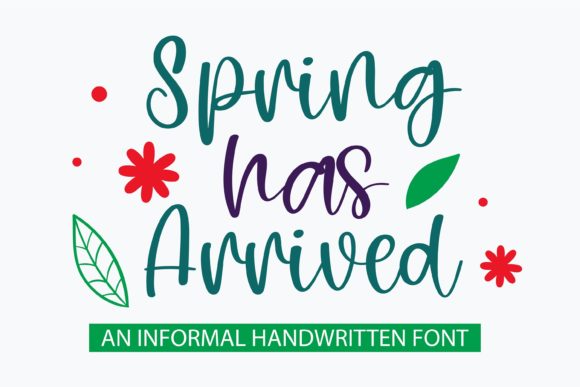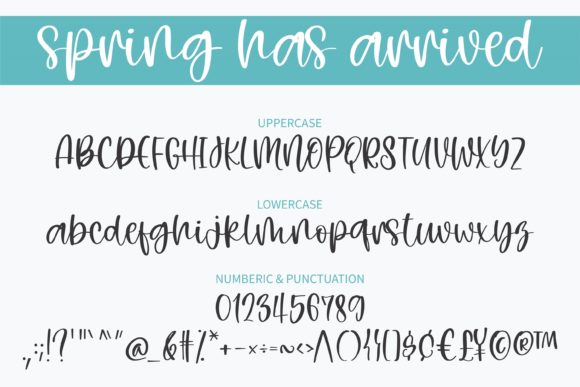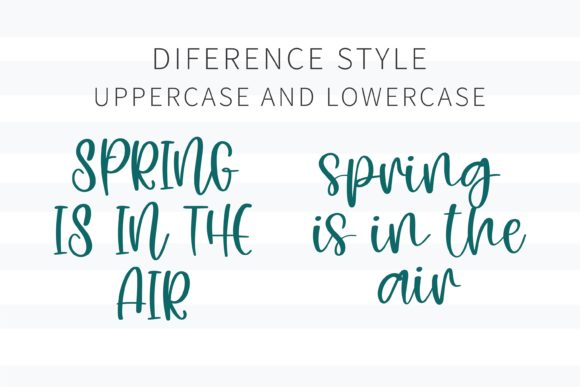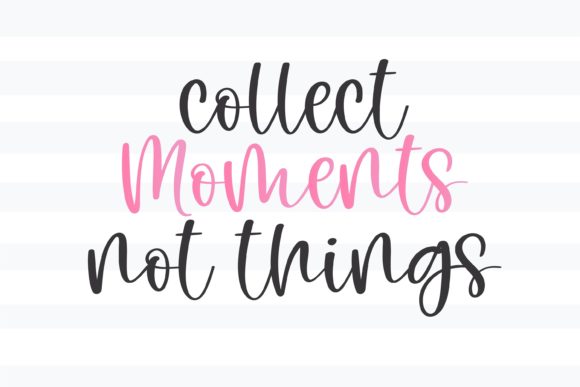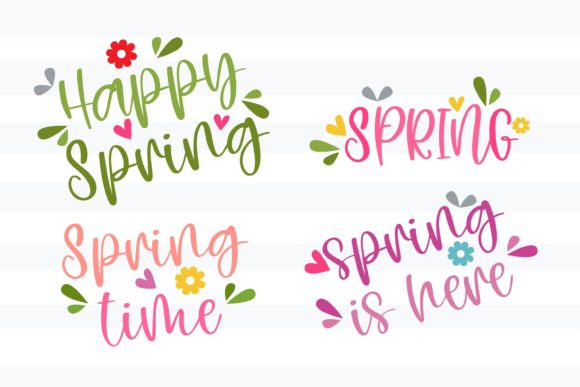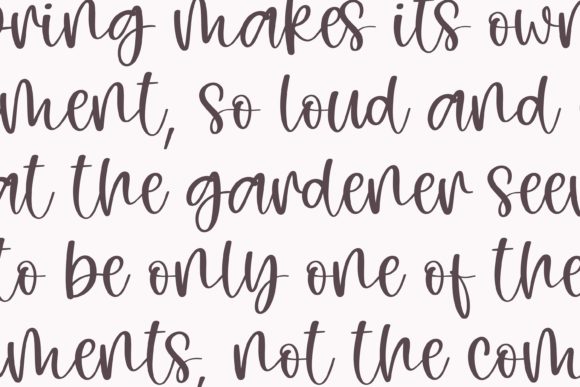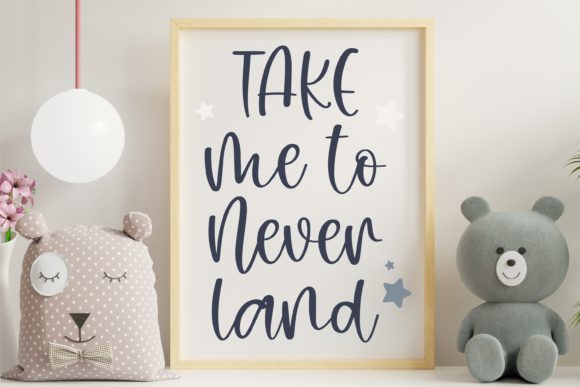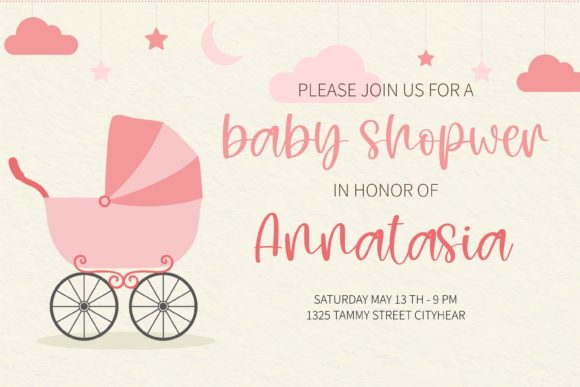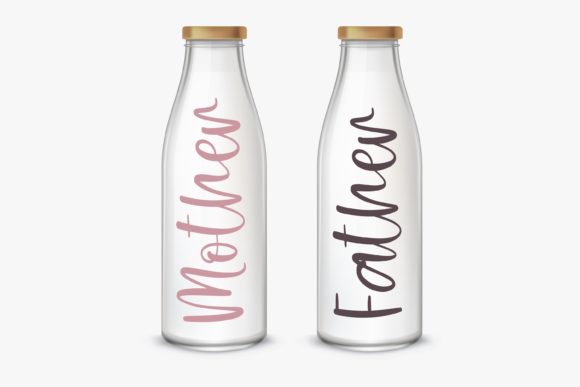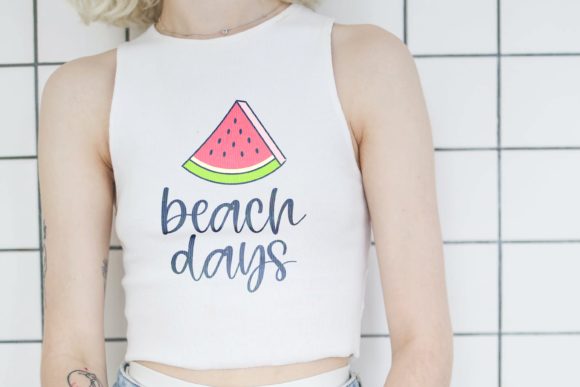
Spring Has Arrived Font
About Spring Has Arrived Font
“Spring Has Arrived” welcomes you with its sweet and casual handwritten charm. This font is not just a typeface; it’s an incredibly versatile style that invites you to fall in love with its warmth and adaptability. Use it to craft gorgeous wedding invitations, design beautiful stationary art, create eye-catching social media posts, and much more!
The versatility of “Spring Has Arrived” allows it to seamlessly adapt to various design contexts, adding a touch of casual elegance to your projects. Its handwritten nature brings a personal and authentic feel, making it well-suited for creating designs that resonate with a wide audience.
Imagine the charm of “Spring Has Arrived” gracing wedding invitations, setting the perfect tone for a celebration of love. The font’s sweet and casual style adds a touch of warmth and friendliness, creating an inviting atmosphere.
Whether you’re working on stationary art or designing engaging social media posts, this font proves to be a delightful choice. Its casual handwritten look adds a human touch to your digital or printed creations, making them approachable and relatable.
In summary, “Spring Has Arrived” is more than just a font; it’s a versatile design tool ready to enhance a myriad of creative projects. Let its sweet and casual handwritten style infuse your designs with a sense of charm and authenticity, making each creation a visual delight for your audience.